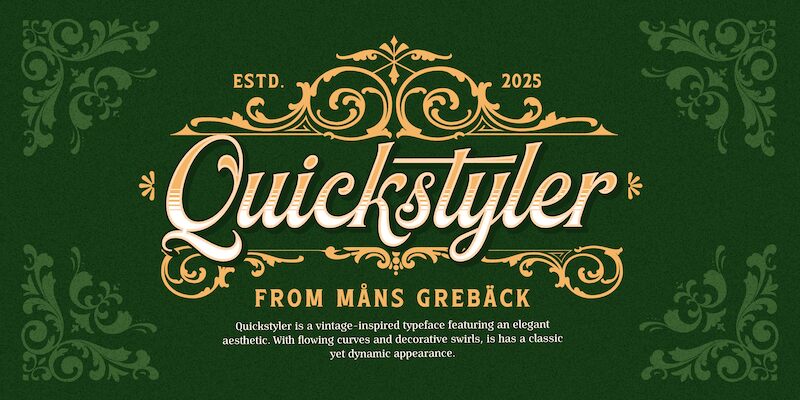
Quickstyler font, created by Mans Greback, is an elegant calligraphy font that captures the essence of Victorian influences. This decorative and flowing typeface radiates a vintage-inspired aesthetic featuring delicate serifs and a steady rhythm that convey both traditional and classy elegance in design.
This free calligraphy font can be put to play across invitation cards, product labels, number plate designs, name tags, business cards, websites and blogs. A great option for certificates of appreciation or diplomas, this font will also look stunning on greeting cards, wall art posters, book covers and magazines!